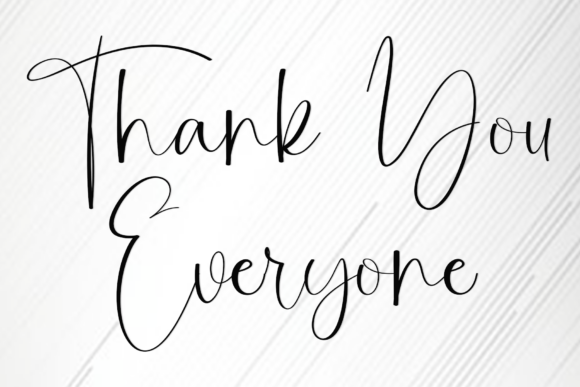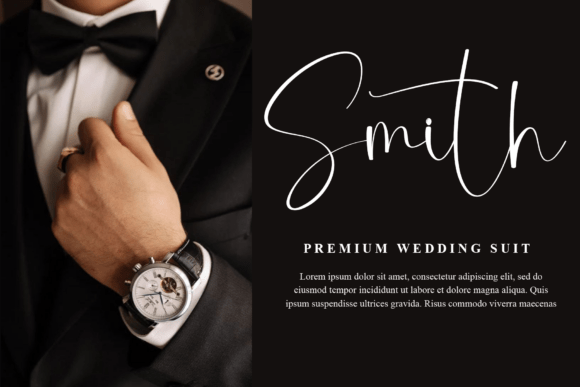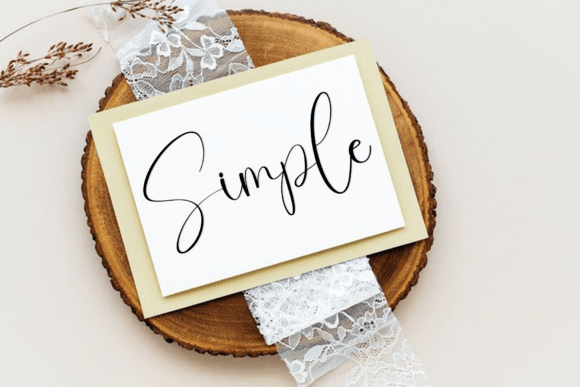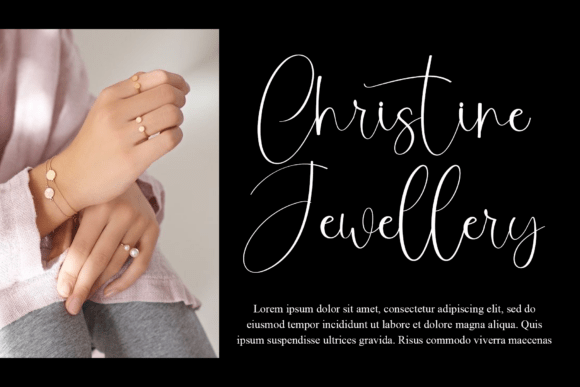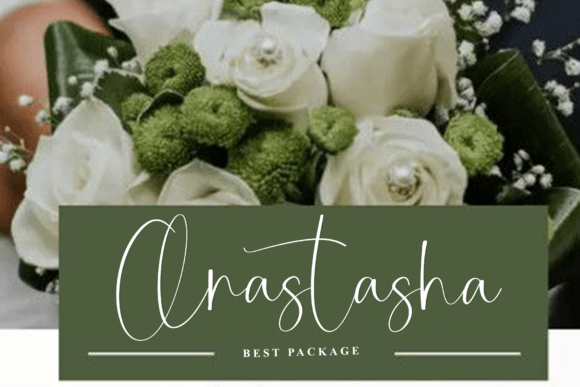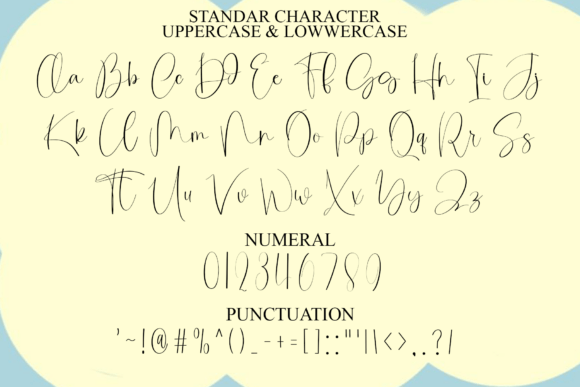
Introducing Contage Signature: The Ultimate Casual Font for Creative Projects
Are you tired of using the same old fonts for your personal projects, invitations, and social media graphics? Look no further than Contage Signature, a casual and creative font that exudes warmth and friendliness. This charming font is perfect for designers and crafters who want to add a personal touch to their work.
The Characteristics of Contage Signature
Contage Signature is a hand-drawn font that features round, playful strokes that create a relaxed and approachable feel. The font’s unique aesthetic is reminiscent of handwritten signatures, making it perfect for projects that require a personal touch. The casual and creative vibe of Contage Signature makes it ideal for a wide range of applications, from social media graphics to invitations and personal projects.
Why Choose Contage Signature?
So, why should you choose Contage Signature for your next project? Here are just a few reasons:
- Warm and Friendly: Contage Signature exudes warmth and friendliness, making it perfect for projects that require a personal touch.
- Casual and Creative: The font’s casual and creative vibe makes it ideal for personal projects, invitations, and social media graphics.
- Hand-Drawn Aesthetic: The font’s hand-drawn aesthetic adds a fun and unique touch to any design.
- Versatile: Contage Signature is versatile and can be used for a wide range of applications, from digital projects to print materials.
How to Use Contage Signature in Your Designs
Contage Signature is easy to use and can be incorporated into a wide range of designs. Here are a few tips for using the font in your projects:
- Pair with Other Fonts: Contage Signature pairs well with other fonts, making it easy to create unique and interesting typography combinations.
- Use for Headings and Titles: The font’s bold and playful strokes make it perfect for headings and titles.
- Add a Personal Touch: Use Contage Signature to add a personal touch to your designs, making them more approachable and friendly.
Contage Signature is perfect for designers and crafters who want to add a personal touch to their work. The font’s casual and creative vibe makes it ideal for:
- Personal Projects: Use Contage Signature for personal projects, such as photo albums, scrapbooking, and journaling.
- Invitations: The font’s hand-drawn aesthetic makes it perfect for invitations, such as birthday parties, weddings, and baby showers.
- Social Media Graphics: Contage Signature is perfect for social media graphics, such as blog posts, Facebook posts, and Instagram stories.
In conclusion, Contage Signature is a casual and creative font that exudes warmth and friendliness. Its round, playful strokes create a relaxed and approachable feel, making it perfect for personal projects, invitations, and social media graphics. With its hand-drawn aesthetic and versatile nature, Contage Signature is a must-have font for designers and crafters who want to add a personal touch to their work.